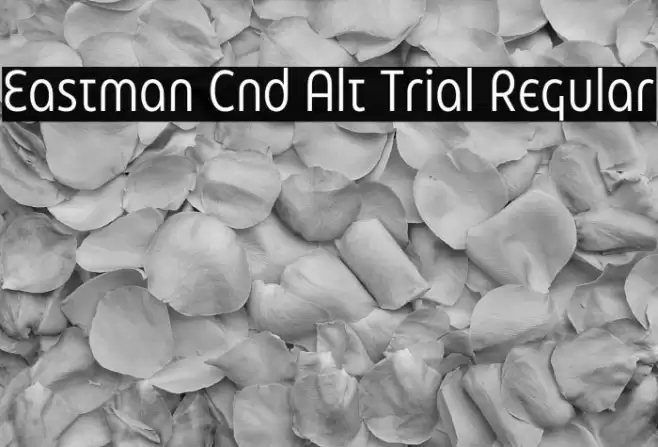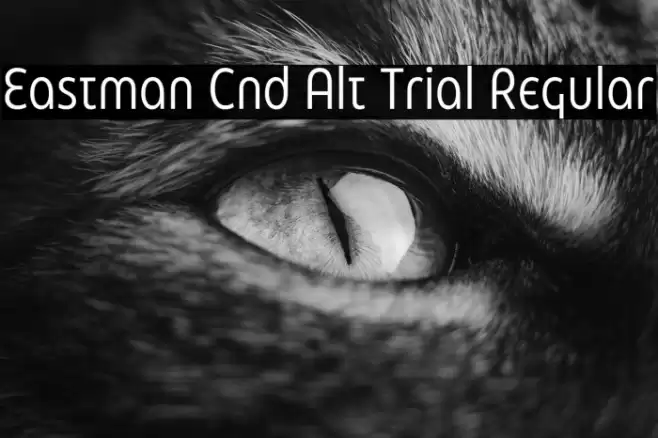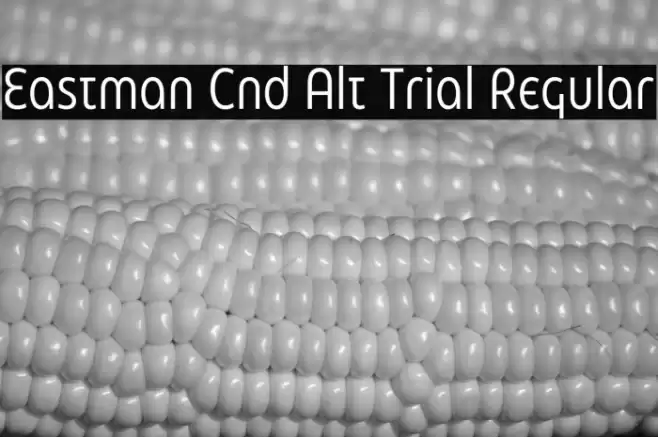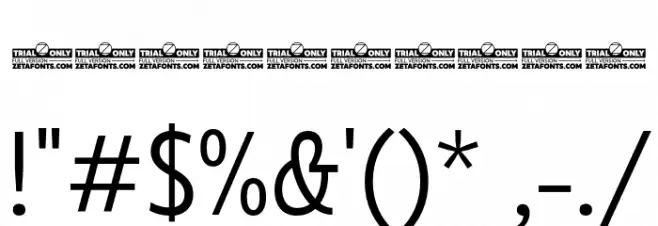
Eastman Cnd Alt Trial Regular Font
Eastman Cnd Alt Trial Regular Description
This font features a clean and modern design with a geometric sans-serif style. The characters are uniformly structured, offering a sleek and contemporary appearance. The uppercase and lowercase letters maintain a consistent height and width, contributing to a balanced and harmonious look. The numerals and special characters are designed to match the overall aesthetic, ensuring a cohesive visual experience. The font's simplicity and clarity make it highly legible, suitable for various applications where readability is essential.
A modern geometric sans-serif font with a clean and balanced design from Uncategorized fonts.
- Proposed Projects: Ideal for branding, web design, advertising, and editorial projects where a modern and clean look is desired.